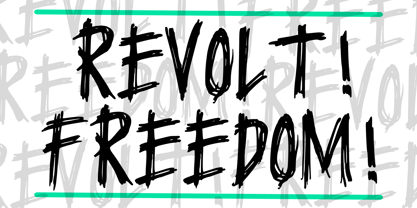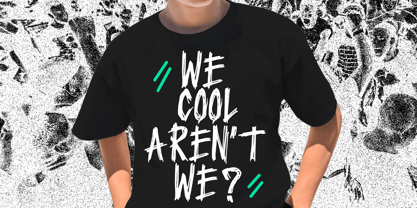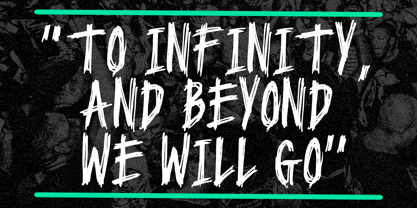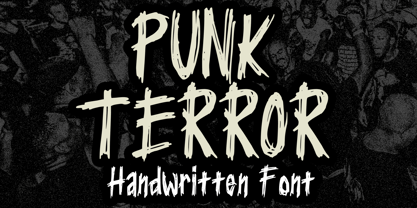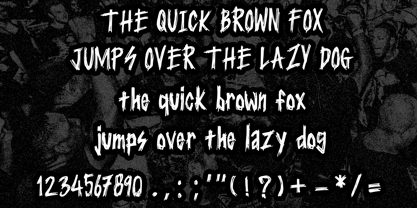
Punk Terror
by Mvmet
The Punk Terror Font Family was designed by Gabriel Valentinus and published by Mvmet. Punk Terror contains 1 styles. More about this family
Unleash the rebel in your designs with Punk Terror, a bold display font inspired by the punk rock band aesthetic. This font embodies a perfect blend of anarchy and artistry, delivering an audacious style that captivates attention. Ideal for creating striking movie posters, iconic single covers, eye-catching posters, quirky stickers, and trendsetting apparel and merchandise designs, Punk Terror elevates your creative projects to new heights of cool. With its unmistakably edgy character, Punk Terror is not just a font—it's a design revolution. Let your designs exude personality and leave a lasting impression with Punk Terror!
Designers: Gabriel Valentinus
Foundry: Mvmet